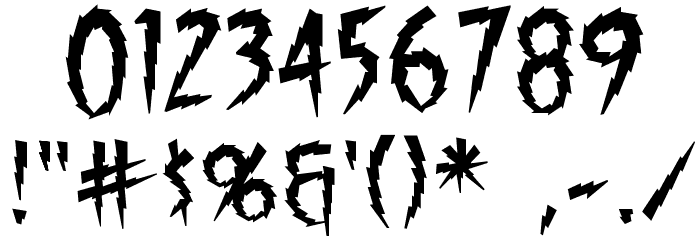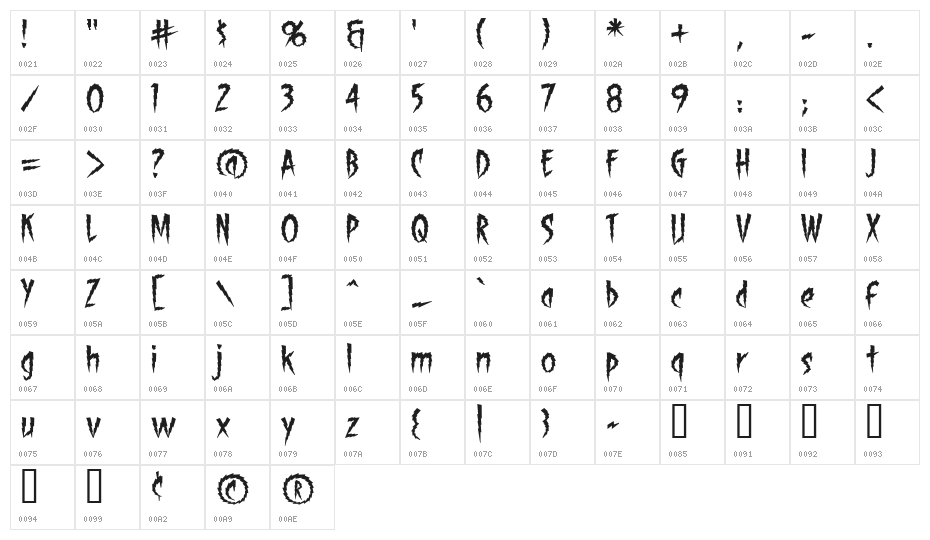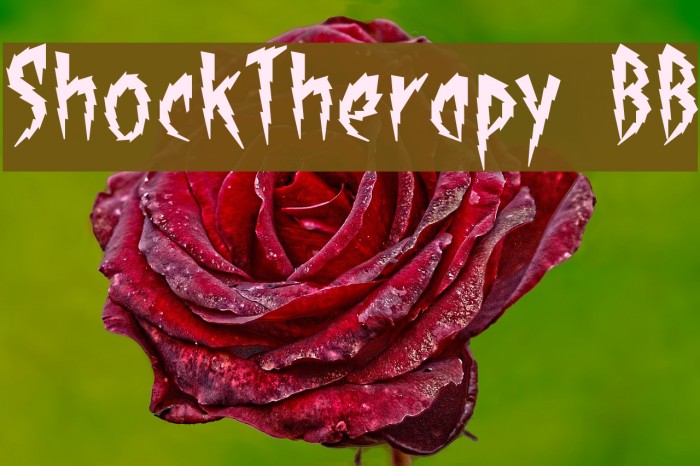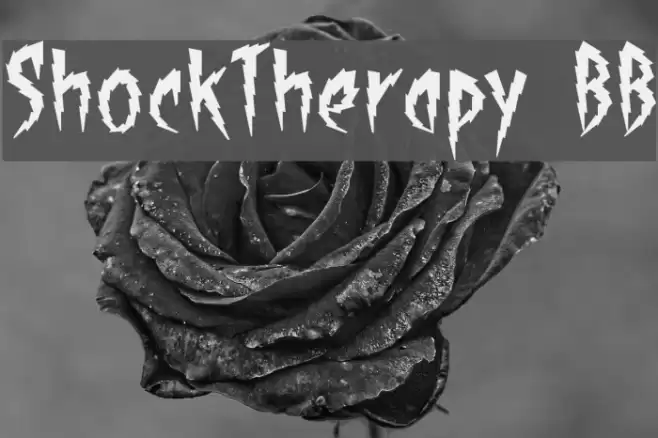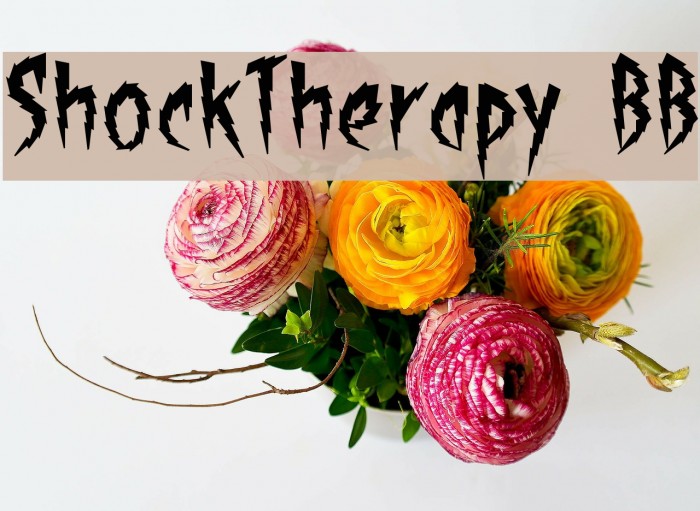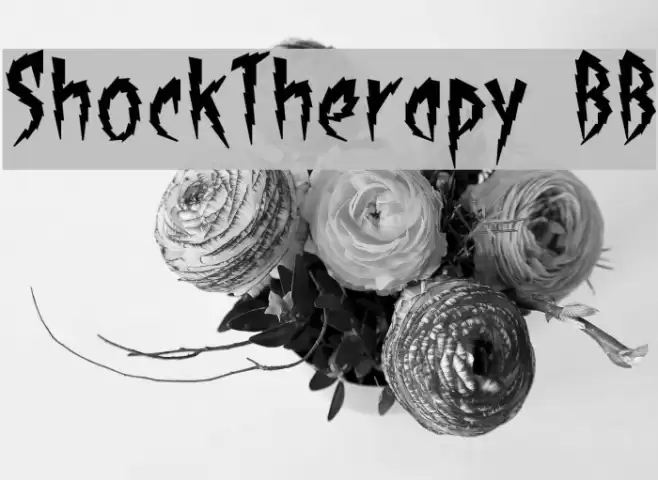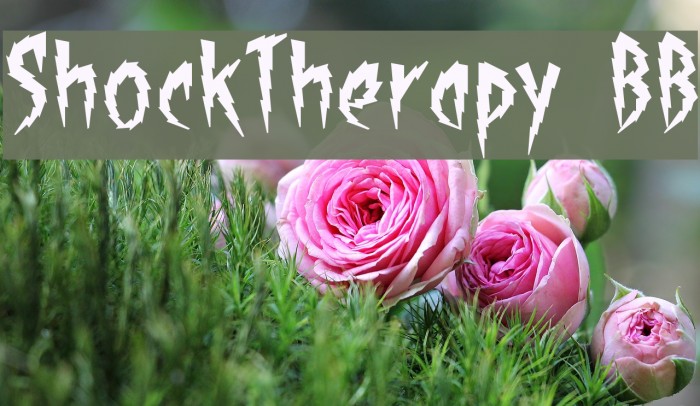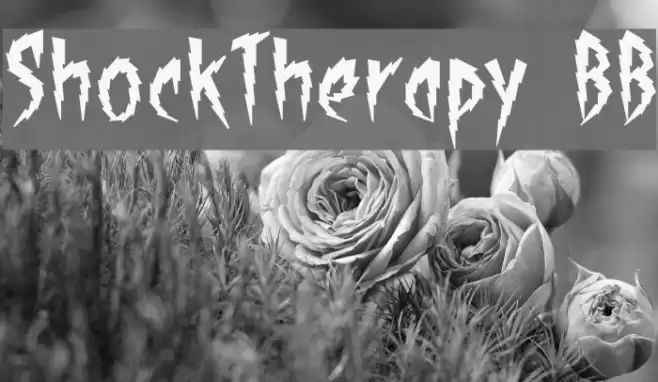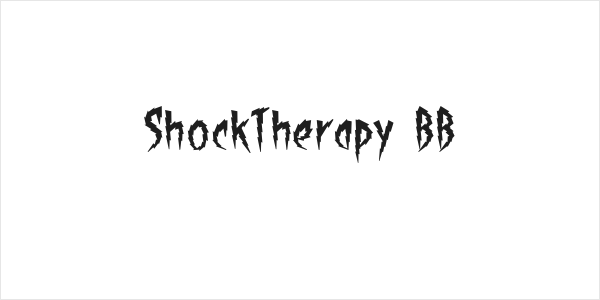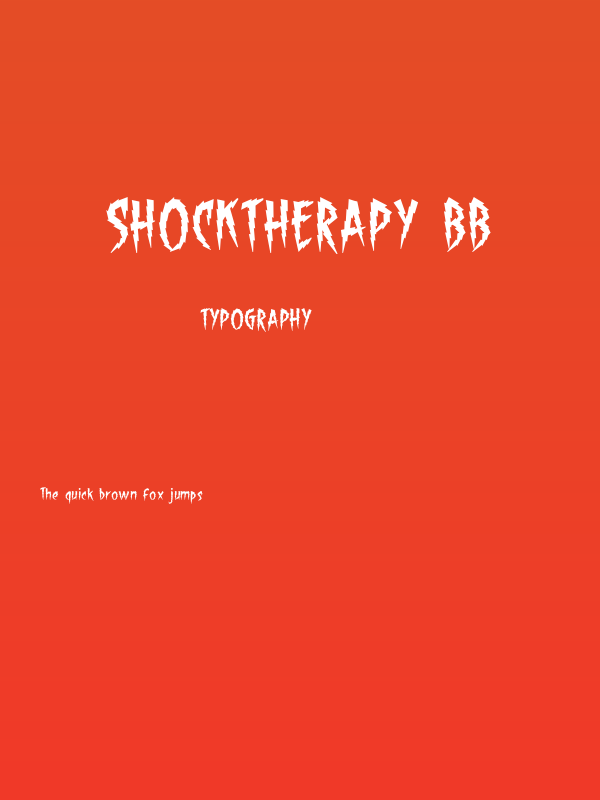
ShockTherapy BB Font
ShockTherapy BB Description
This font features an electrifying and jagged design, reminiscent of lightning bolts or sharp edges. Each character is uniquely crafted with angular, zigzag strokes that give it a dynamic and energetic appearance. The uppercase and lowercase letters maintain a consistent style, with exaggerated points and sharp angles that create a sense of movement and intensity. Numbers and special characters follow the same design principles, ensuring a cohesive look across all elements. The font's bold and striking nature makes it ideal for attention-grabbing headlines or thematic designs that require a sense of urgency or excitement.
| Proposed Projects | Perfect for horror-themed posters, Halloween events, rock band logos, or any project needing a dramatic and edgy typeface. |